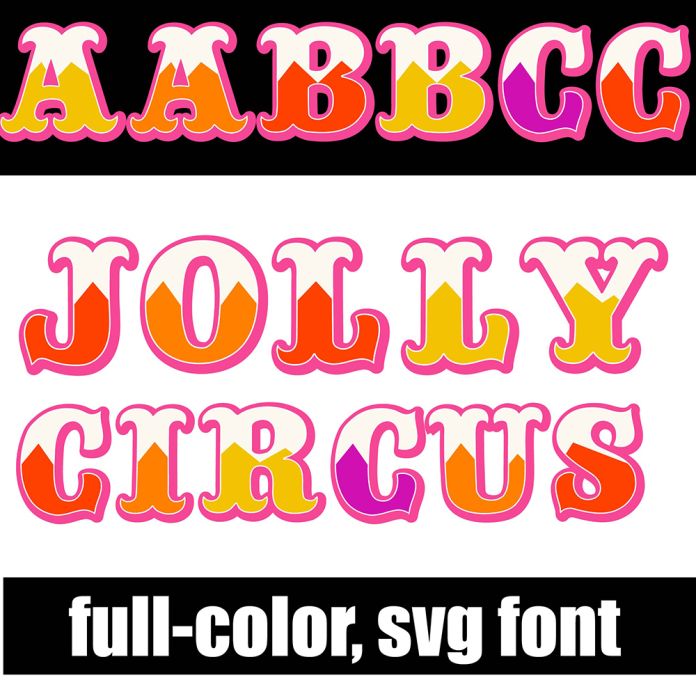
This fun, circus-esque font is in a warm, whimsical color palette. There is an alt version you can access through your system's character map that contains additional colors of all the letters. This font works best for titles, displays, posters and more. Please note color fonts will show as black in non compatible programs. This font type is compatible with Silhouette Studio.